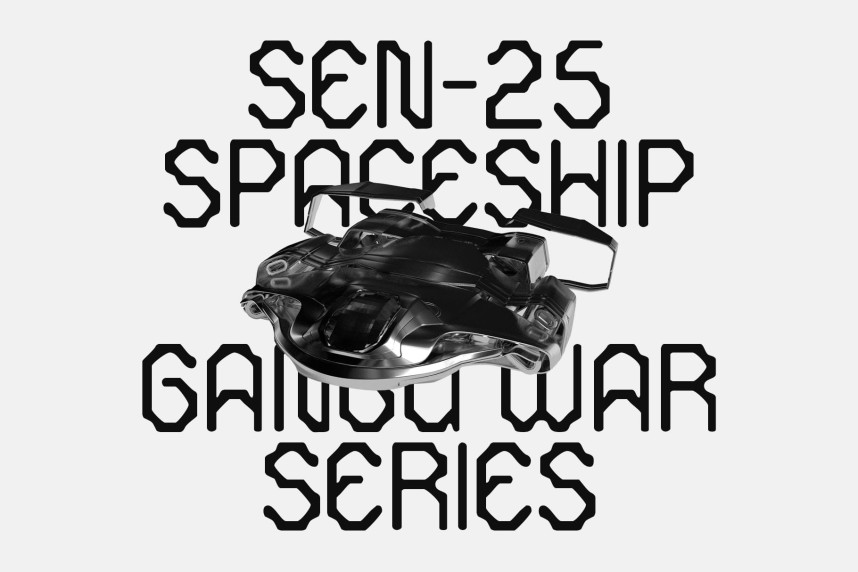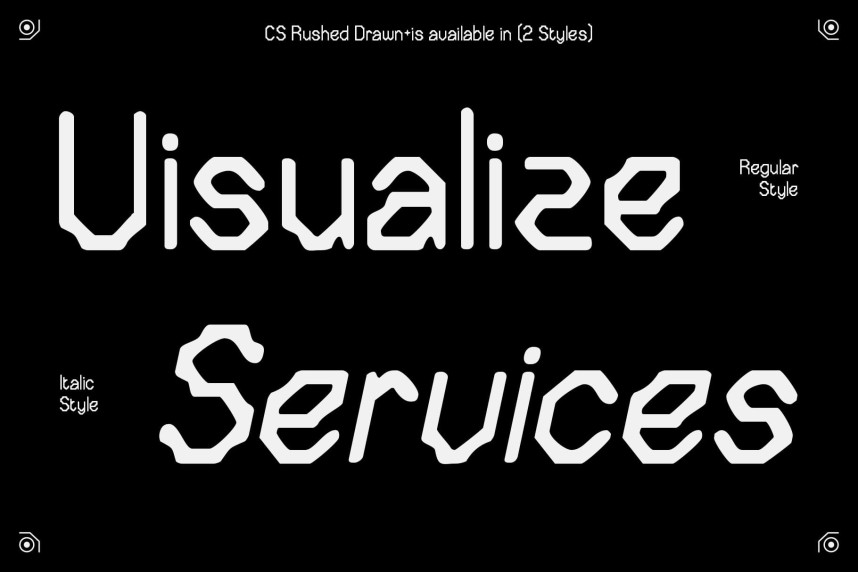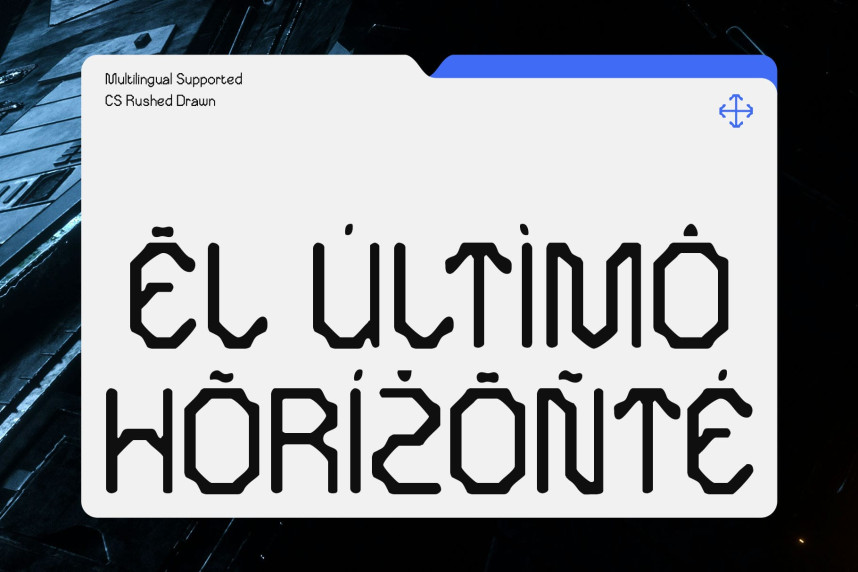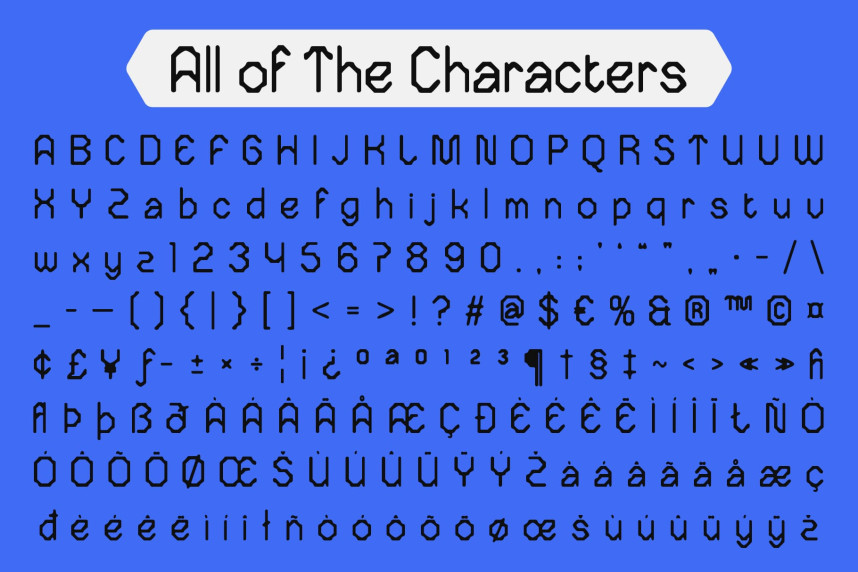
CS Rushed Drawn Font
CS Rushed Drawn Font reimagines the classic techno font by blending bold, futuristic structure with a relaxed, hand-drawn texture. While techno fonts are typically defined by sharp precision and clean lines, this font introduces an organic, manual touch that makes it stand out. The result is a typeface that feels modern yet approachable.
The drawn effect of CS Rushed Drawn softens its techno backbone, giving the impression of irregular strokes that mimic handwriting. This texture creates depth and individuality, breaking away from the rigid perfection of digital type. Each letter feels expressive, adding character to your design while still maintaining readability.